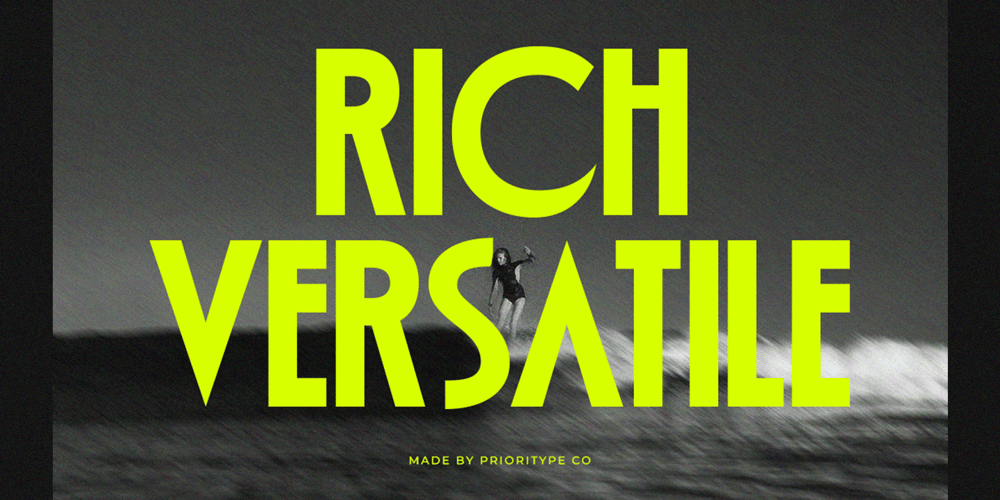
Rich Versatile Font Family was designed by Prio Nurokhim Aji and published by Prioritype. Rich Versatile contains 1 styles and family package options. Rich Versatile – Display SansA bold sans serif display font that makes your designs stand out. Designed to bring your designs from retro to modern themes together, it’s still great. Very suitable for branding, poster and logo designs.Features: Uppercase, Lowercase, Numeral, Punctuation & Multilingual.Multilingual contained: Afrikaans, Albanian, Asu, Basque, Bemba, Bena, Breton, Catalan, Chiga, Cornish, Danish, Dutch, English, Estonian, Filipino, Finnish, French, Friulian, Galician, German, Gusii, Indonesian, Irish, Italian, Kabuverdianu, Kalenjin, Kinyarwanda, Luo, Luxembourgish, Luyia, Machame, Makhuwa-Meetto, Makonde, Malagasy, Manx, Morisyen, North Ndebele, Norwegian Bokmål, Norwegian Nynorsk, Nyankole, Oromo, Portuguese, Quechua, Romansh, Rombo, Rundi, Rwa, Samburu, Sango, Sangu, Scottish Gaelic, Sena, Shambala, Shona, Soga, Somali, Spanish, Swahili, Swedish, Swiss German, Taita, Teso, Uzbek (Latin), Volapük, Vunjo, Zulu.Thanks!